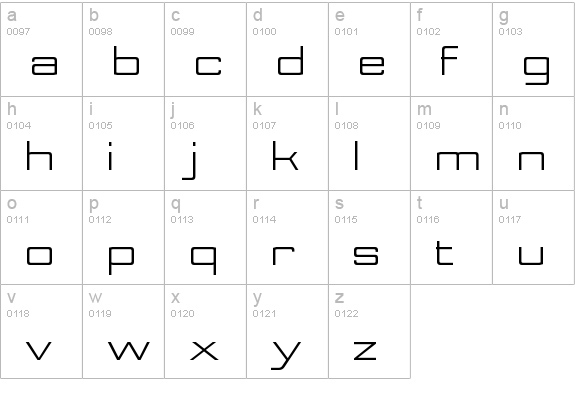
NesobriteEx-Regular Font Details
NesobriteEx-Regular is the standard, neutral variant in the NesobriteEx typeface family \xE2\x80\x94 well suited to general body text, paragraphs, and standard typographic work.
NesobriteEx-Regular is a modern and stylish font that exudes sophistication and versatility. With its clean lines and contemporary design, this font is perfect for a wide range of design projects, from branding to editorial layouts. The sleek and elegant aesthetic of NesobriteEx-Regular makes it a standout choice for any project that requires a touch of class. Not only is NesobriteEx-Regular visually appealing, but it also offers excellent readability, making it suitable for both display and body text. Its versatility allows it to seamlessly adapt to various design contexts, making it a valuable asset for designers and creatives alike. The best part? NesobriteEx-Regular is available for free download at FontsMarket.com, allowing you to access this high-quality font without breaking the bank. Don't miss out on the opportunity to elevate your designs with NesobriteEx-Regular – download it today and unleash your creativity!